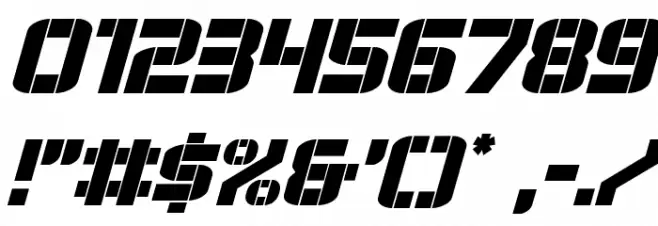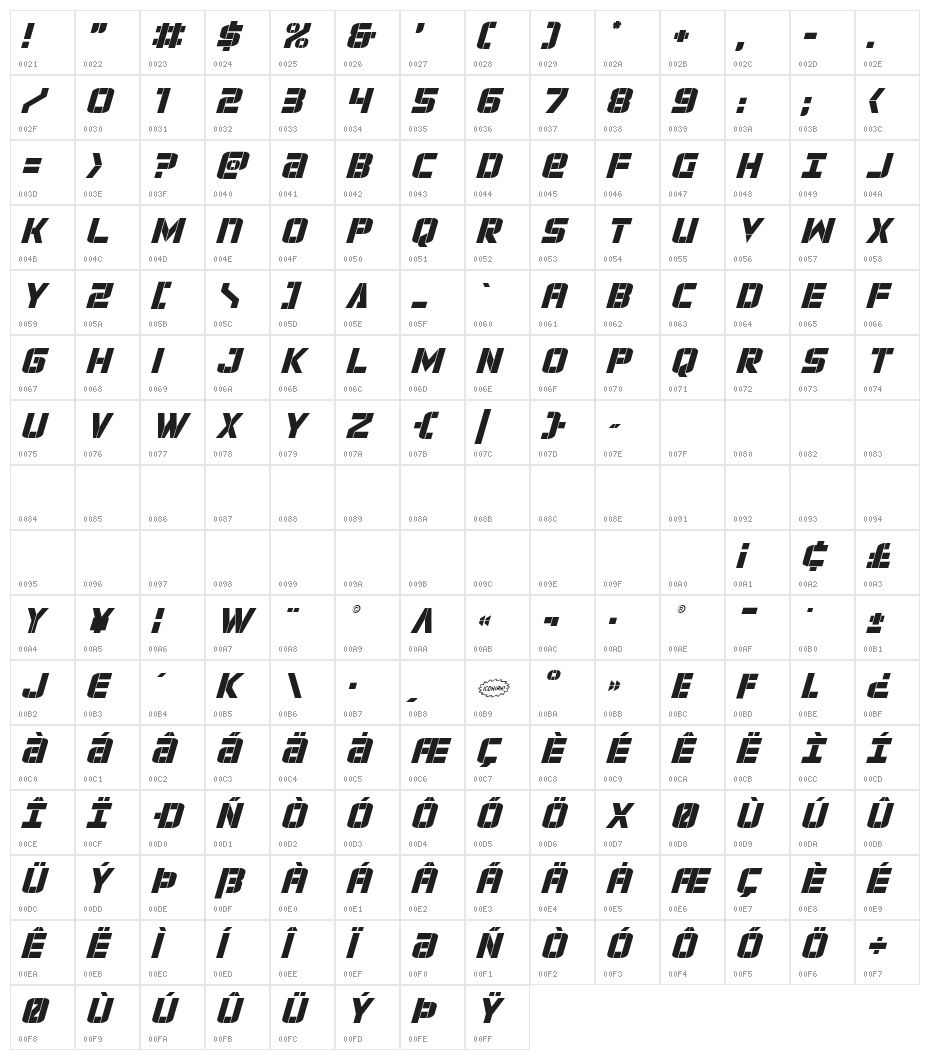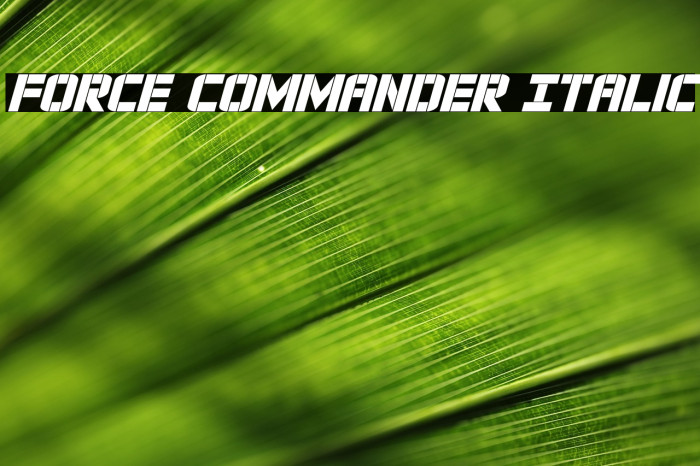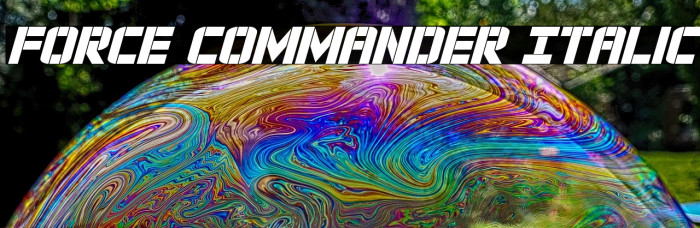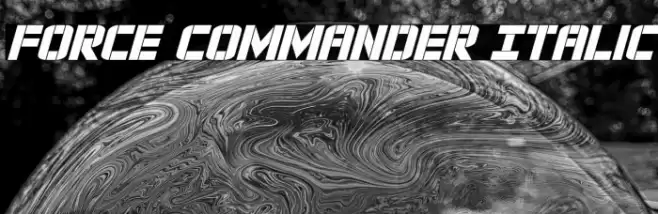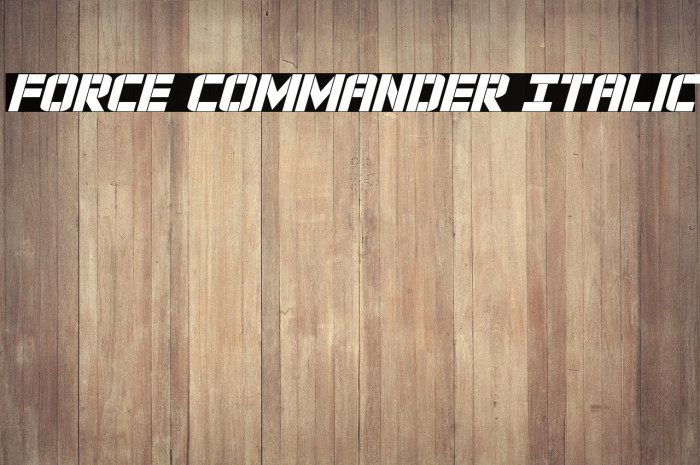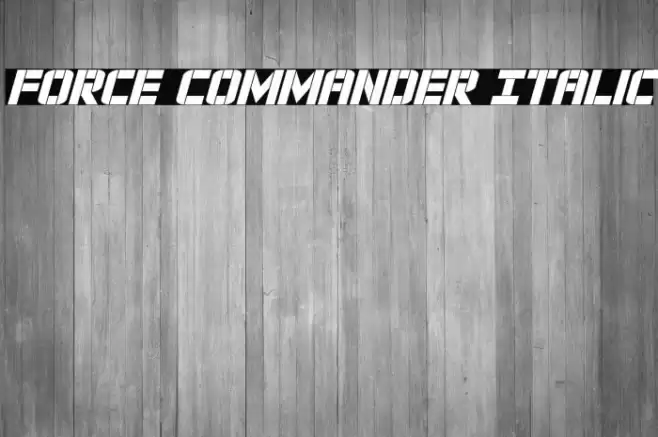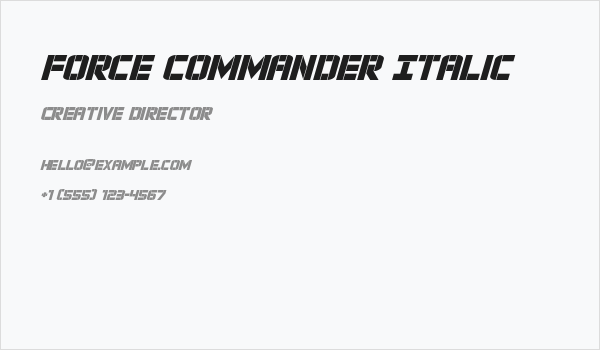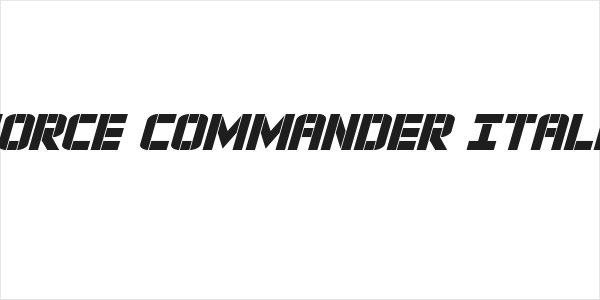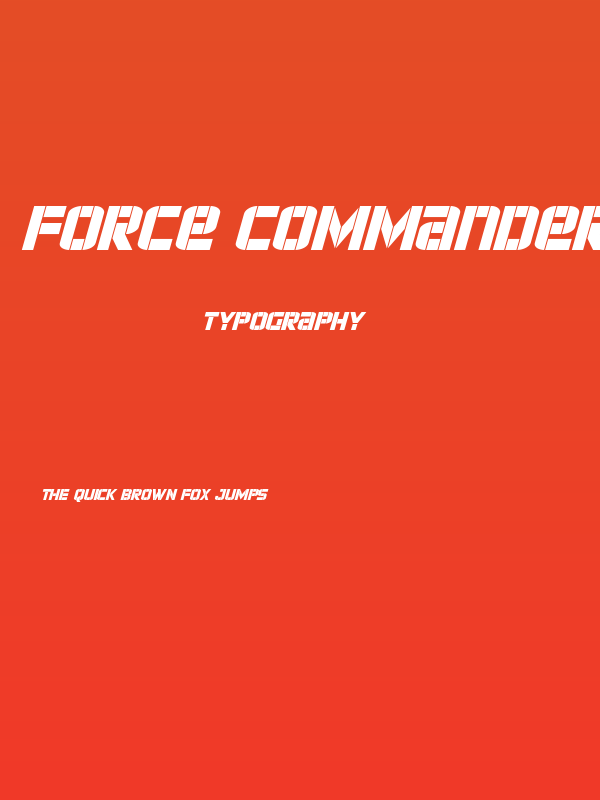
Force Commander Italic Font
Force Commander Italic Description
This font features a bold, italicized style with a futuristic and dynamic appearance. The characters are constructed with a stencil-like design, incorporating sharp angles and geometric shapes. The uppercase and lowercase letters maintain a consistent slant, enhancing the sense of motion and speed. The numbers and special characters follow the same aesthetic, ensuring uniformity across the typeface. This font's unique design makes it stand out, ideal for projects that require a modern and edgy look.
Proposed ProjectsIdeal for sci-fi themed graphics, video game titles, sports branding, and dynamic posters.